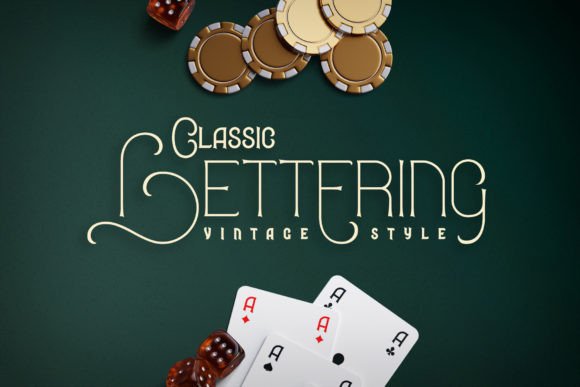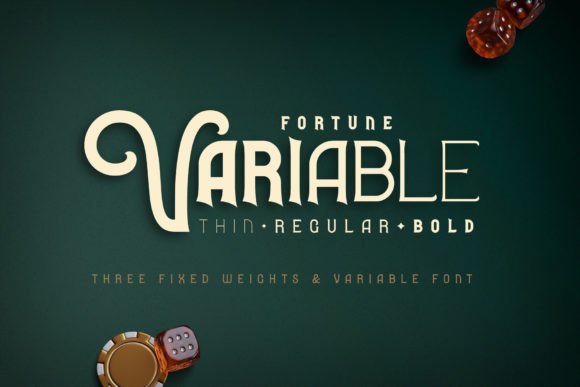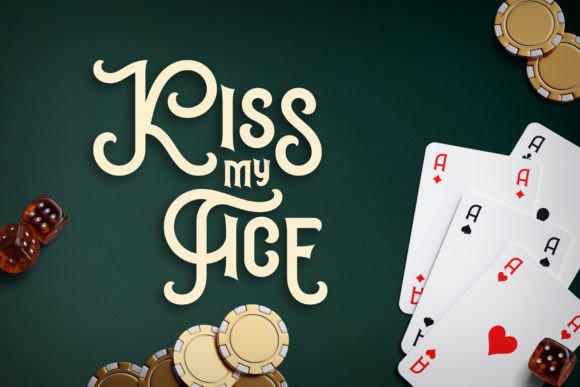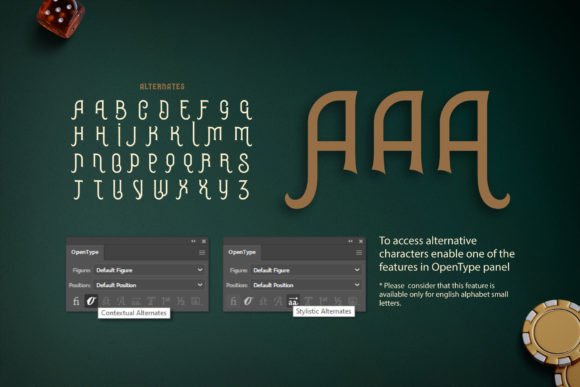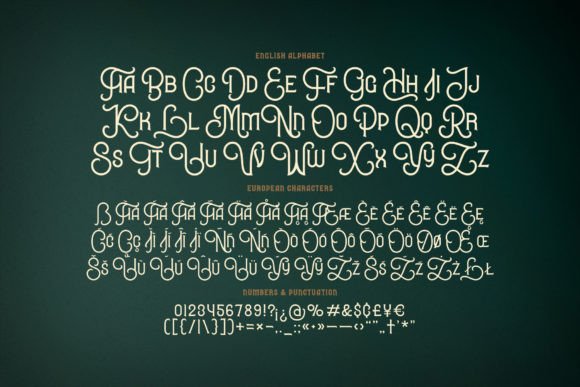
Introducing Fortune Variable Font: Elevate Your Designs with Retro Charm
Are you looking for a font that can add a touch of vintage glamour to your design projects? Look no further than Fortune Variable Font. This stunning display font is perfect for designers and crafters who want to evoke a sense of nostalgia and sophistication in their work. With its bold lines, elegant curves, and timeless appeal, Fortune Variable is sure to capture attention and leave a lasting impression.
What is Fortune Variable Font?
Fortune Variable Font is a versatile and stylish font that is perfect for a wide range of design applications. Whether you’re working on a branding project, packaging design, poster, or any other creative endeavor, this font is sure to add a touch of retro charm and elegance. With its unique blend of bold lines and elegant curves, Fortune Variable Font is the perfect choice for designers who want to create something truly special.
Key Features of Fortune Variable Font
- Bold Lines and Elegant Curves: Fortune Variable Font features bold lines and elegant curves that give it a timeless and sophisticated look.
- Retro Charm: This font is perfect for designers who want to add a touch of vintage glamour to their work.
- Versatile: Fortune Variable Font is suitable for a wide range of design applications, including branding, packaging, posters, and more.
- Variable: As a variable font, Fortune Variable offers a range of style variations, allowing you to experiment with different weights and widths to create a unique look.
Why Choose Fortune Variable Font?
There are many reasons why Fortune Variable Font is an excellent choice for designers and crafters. Here are just a few:
- Unique and Eye-Catching: This font is sure to capture attention and leave a lasting impression on your audience.
- Timeless Appeal: Fortune Variable Font has a timeless appeal that will never go out of style.
- Easy to Read: Despite its bold and elegant design, Fortune Variable Font is easy to read, making it perfect for use in a variety of design applications.
- Customizable: As a variable font, Fortune Variable offers a range of style variations, allowing you to customize it to suit your design needs.
Design Applications for Fortune Variable Font
Fortune Variable Font is a versatile font that can be used in a wide range of design applications. Here are just a few ideas to get you started:
- Branding: Use Fortune Variable Font to create a unique and memorable brand identity.
- Packaging: Add a touch of retro charm to your packaging designs with this elegant font.
- Posters: Create eye-catching posters that will grab attention with Fortune Variable Font.
- Logos: Use this font to create a bold and elegant logo that will help your business stand out.
Tips for Using Fortune Variable Font
Here are a few tips for using Fortune Variable Font in your design projects:
- Experiment with Different Styles: Take advantage of the font’s variable features to experiment with different weights and widths.
- Pair with Other Fonts: Pair Fortune Variable Font with other fonts to create a unique and interesting contrast.
- Use in Headlines and Titles: This font is perfect for use in headlines and titles, where its bold and elegant design can really shine.
In conclusion, Fortune Variable Font is a stunning vintage display font that is perfect for adding a touch of retro charm to any design project. With its bold lines, elegant curves, and timeless appeal, this font is sure to capture attention and evoke a sense of nostalgia. Whether you’re a designer or crafter, Fortune Variable Font is an excellent choice for anyone looking to create something truly special.